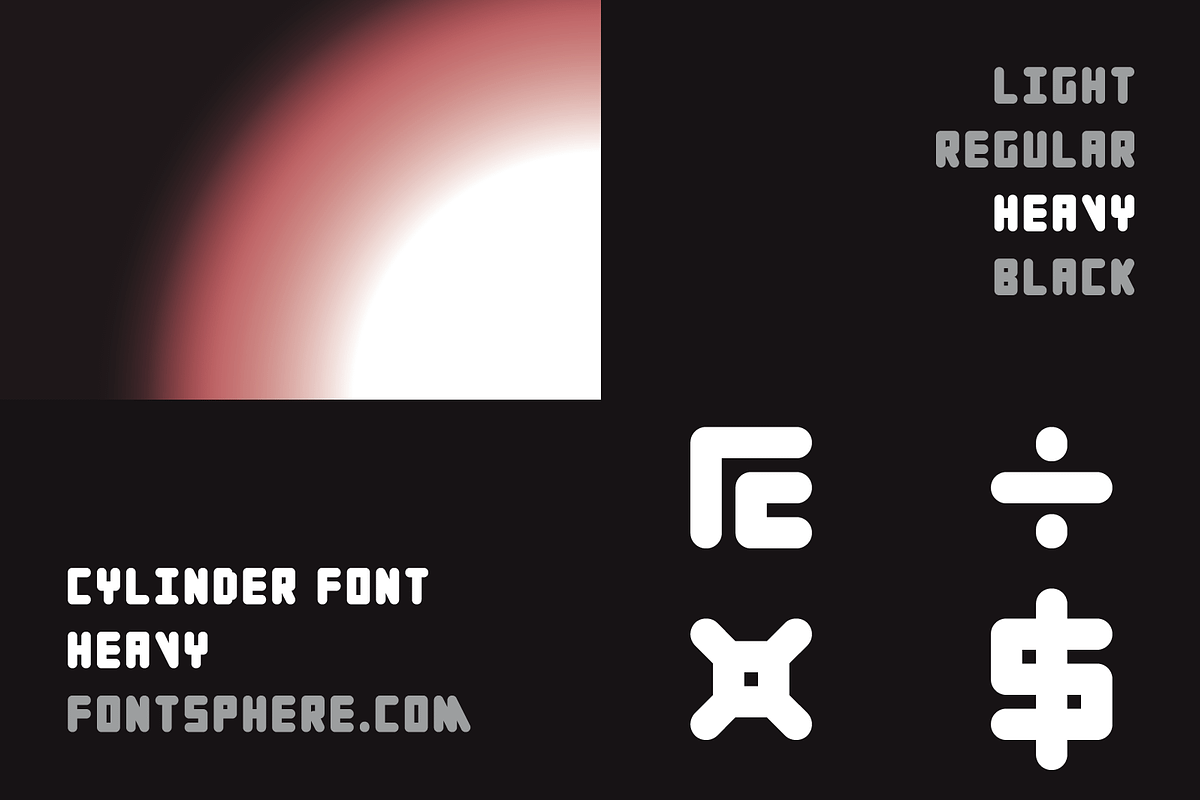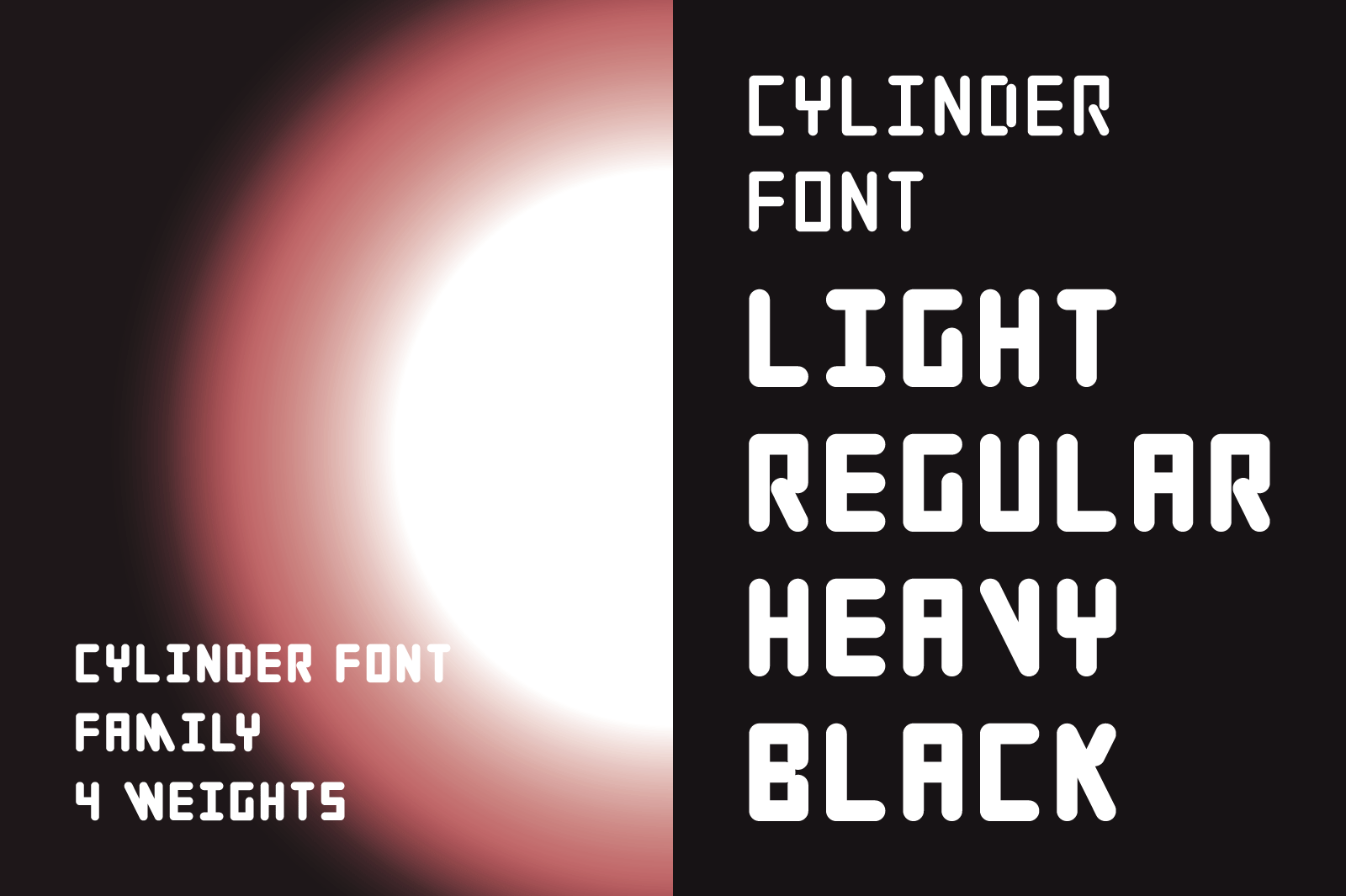
Cylinder Font Family | 4 Styles
Cylinder Font Family
4 (FOUR) fonts included:
- Cylinder Light
- Cylinder Regular
- Cylinder Heavy
- Cylinder Black
- A unique font containing uppercase characters, numerals and a large range of punctuation (over 220 glyphs).